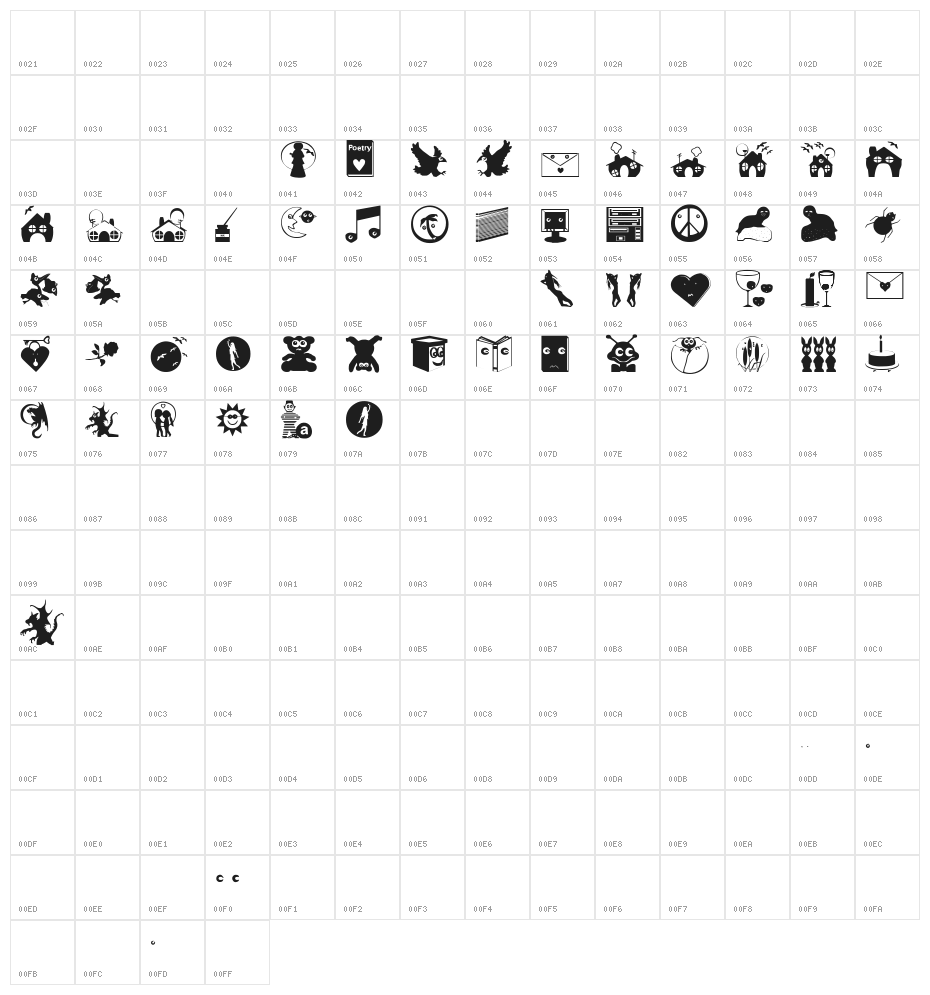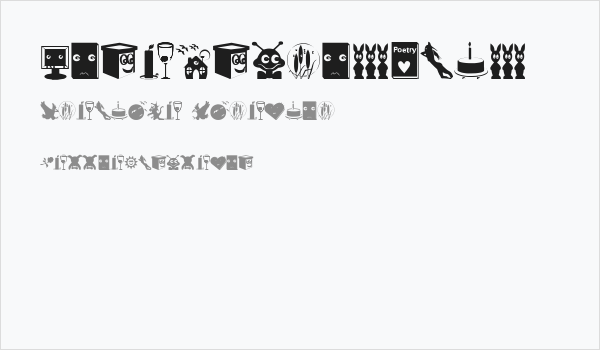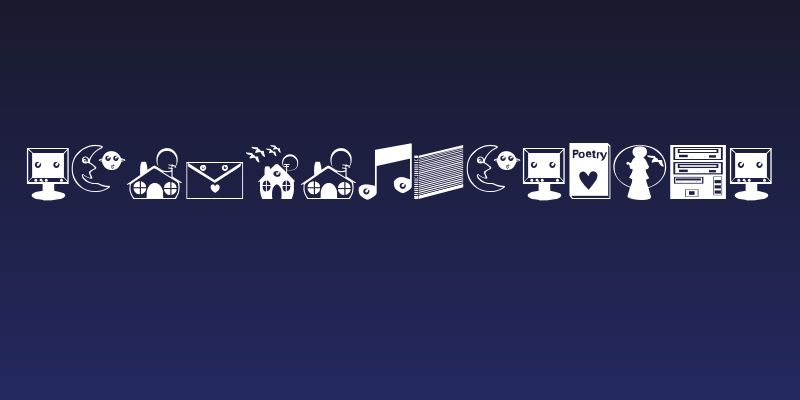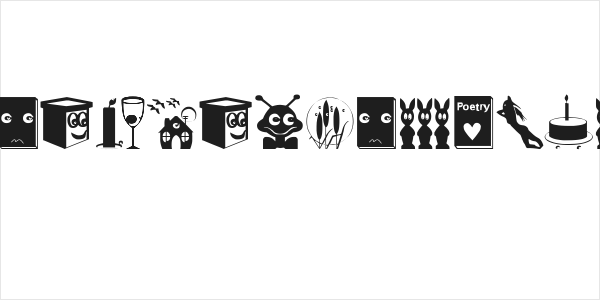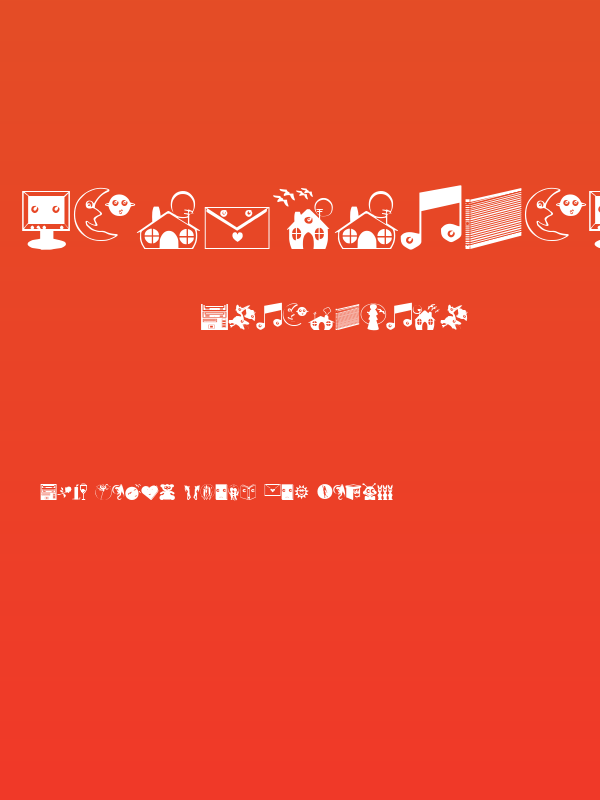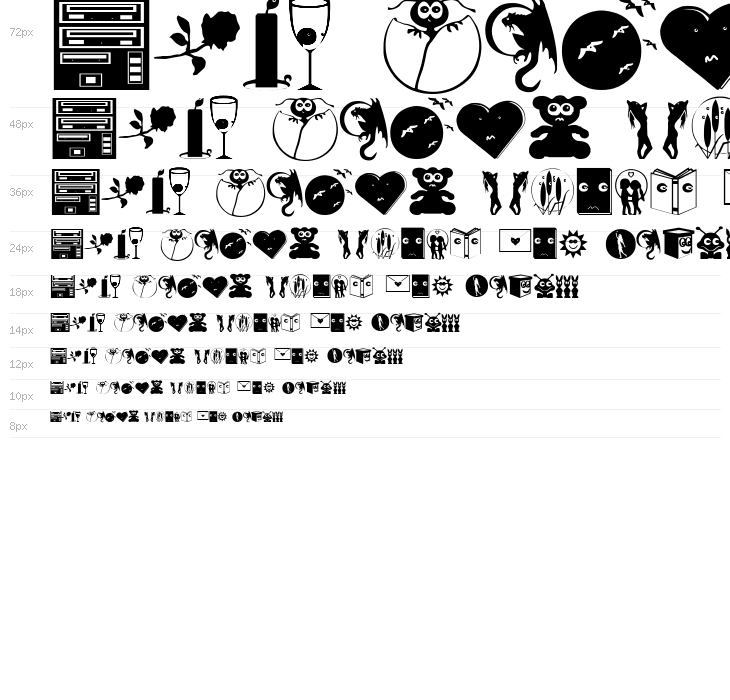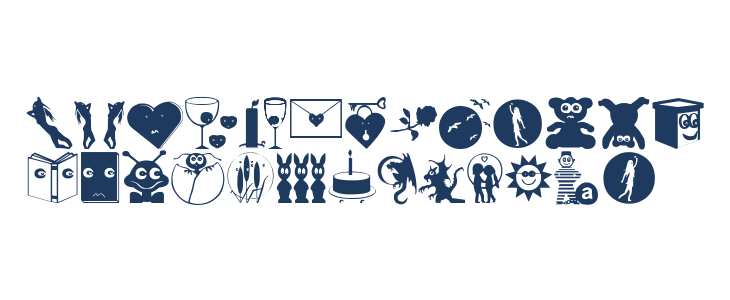
SomeImprosBats Font
SomeImprosBats Description
A collection of playful and whimsical pictograms, each glyph representing a unique icon such as animals, objects, and abstract shapes, rendered in bold, high-contrast black and white silhouettes.
| Overall Style | Decorative, Playful |
| Use Case | Icons, Decorative elements, Themed graphics |
| Proposed Projects | Party invitations, children's books, playful branding, themed posters, scrapbooking, stickers. |